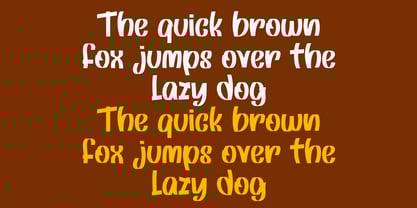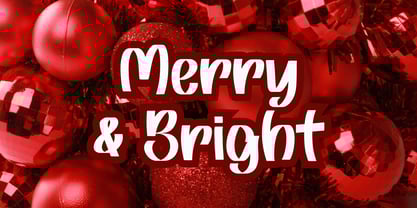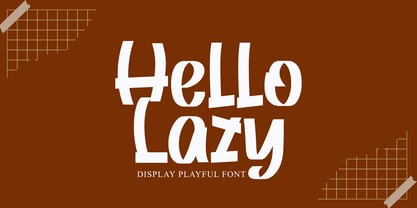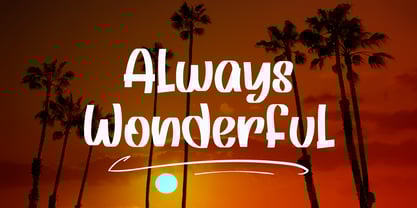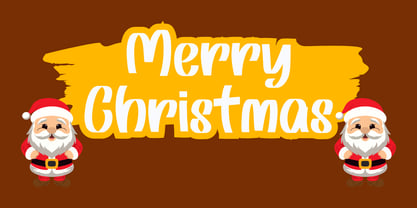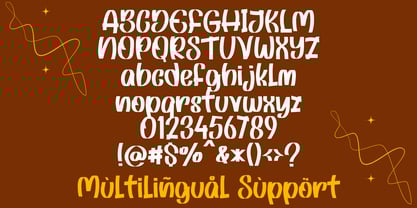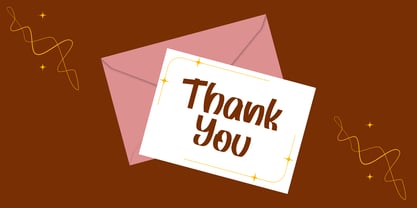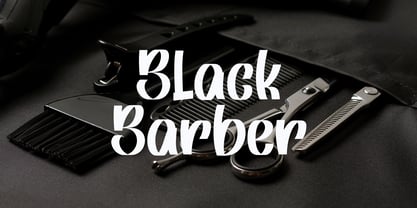
Hello Lazy
by Letterafandi Studio
The Hello Lazy Font Family was designed by Ahmad Afandi and published by Letterafandi Studio. Hello Lazy contains 2 styles and family package options. More about this family
Hello Lazy is a playful display typeface featuring bold, uneven letterforms with a hand-crafted aesthetic. Its quirky shapes and exaggerated strokes create a fun and casual tone, making it suitable for children’s projects, branding, posters, packaging, and creative social media layouts. Designed to stand out, this font adds an expressive and friendly character to any visual design.
Designers: Ahmad Afandi
Foundry: Letterafandi Studio